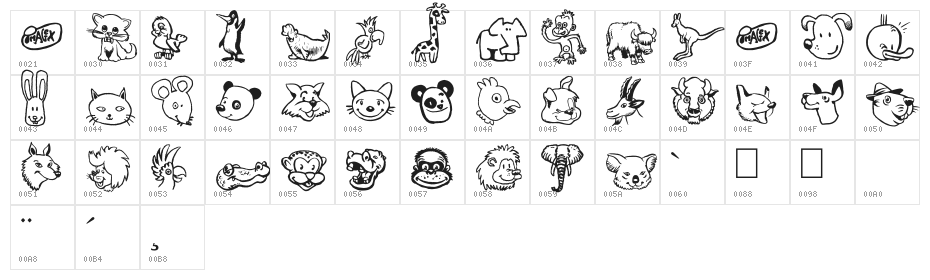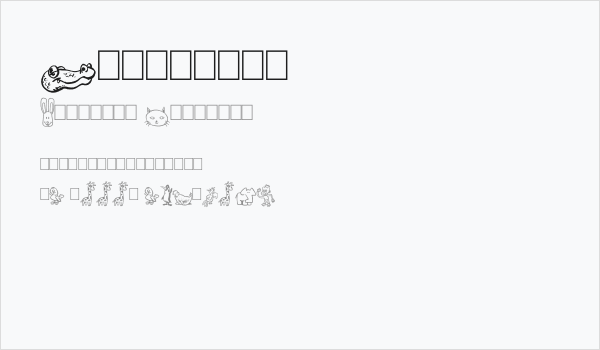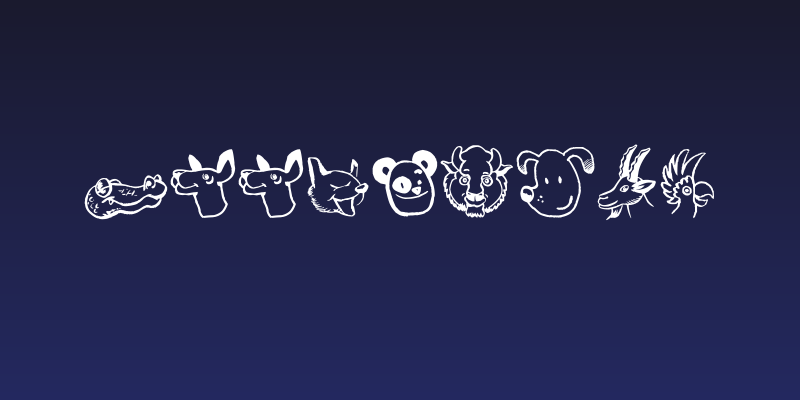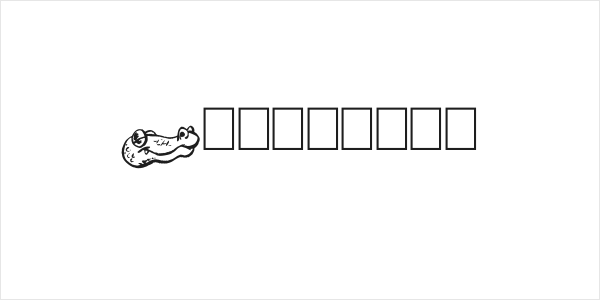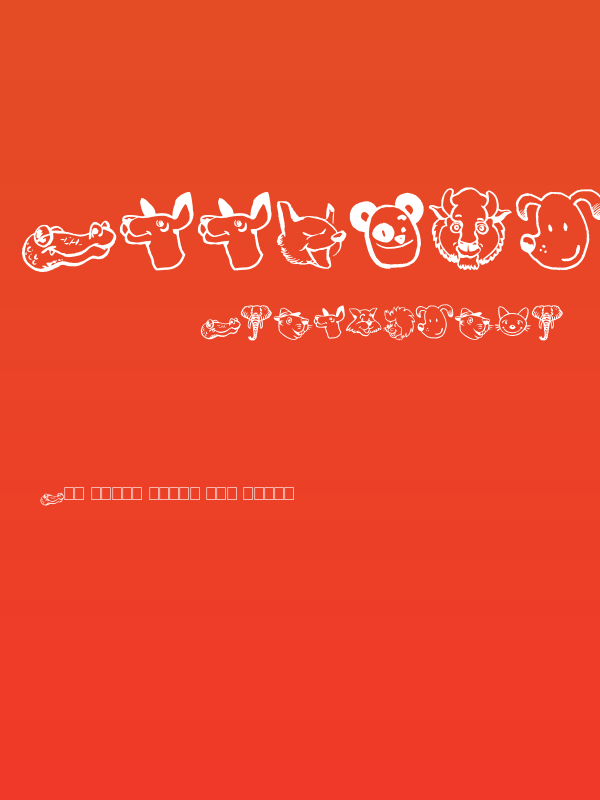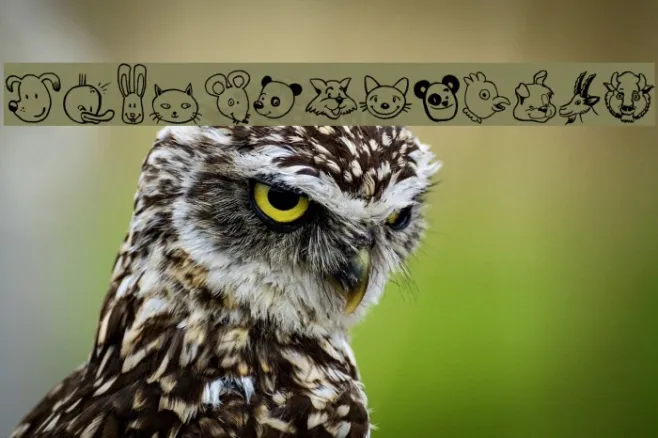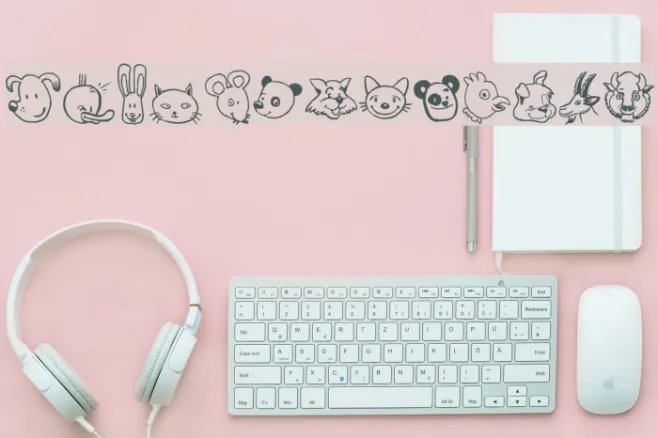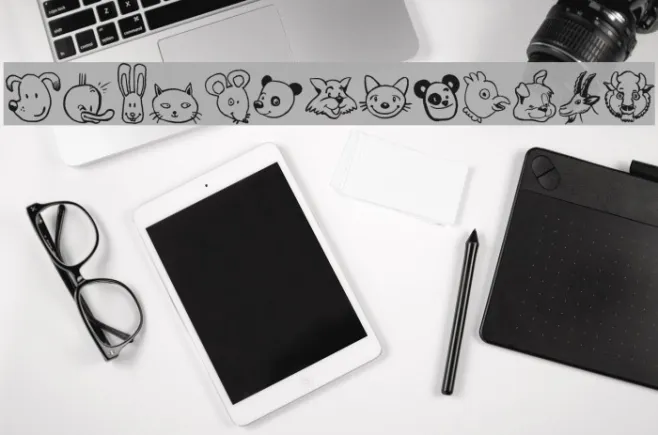
Toonimals Font
Toonimals Description
This collection features a whimsical and playful set of animal illustrations, each representing a different character. The designs are cartoonish and charming, with exaggerated features that give each animal a unique personality. The lines are bold and clean, making the characters easily recognizable and suitable for a variety of creative projects. The style is consistent throughout, with a focus on simplicity and expressiveness. These illustrations are perfect for adding a fun and lighthearted touch to any design.
| Use Case | Illustrations, Decorative elements |
| Proposed Projects | Ideal for children's books, educational materials, greeting cards, and playful branding projects. |